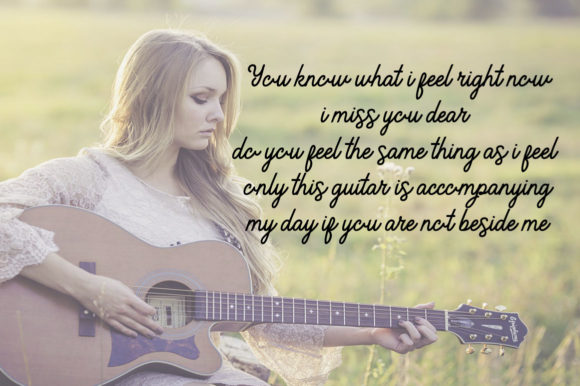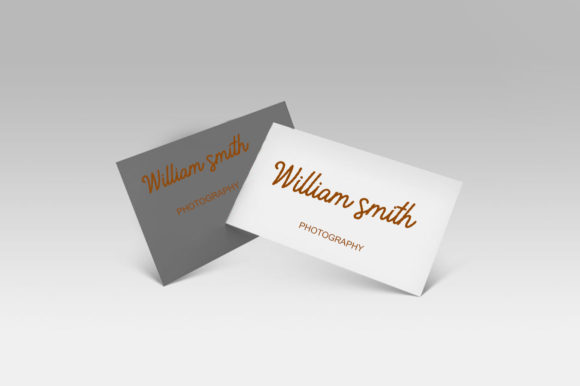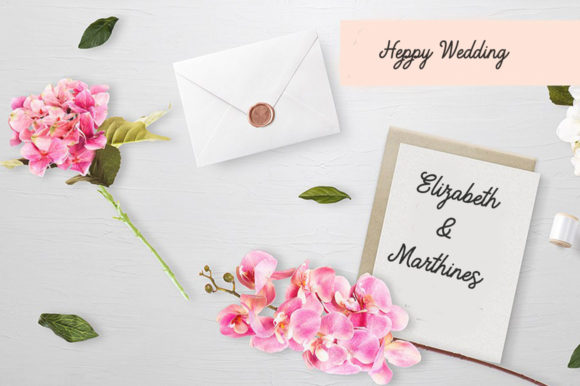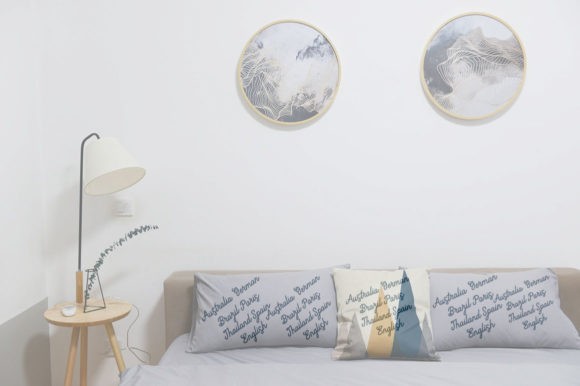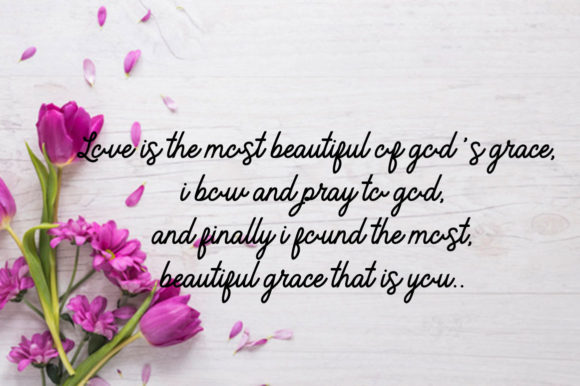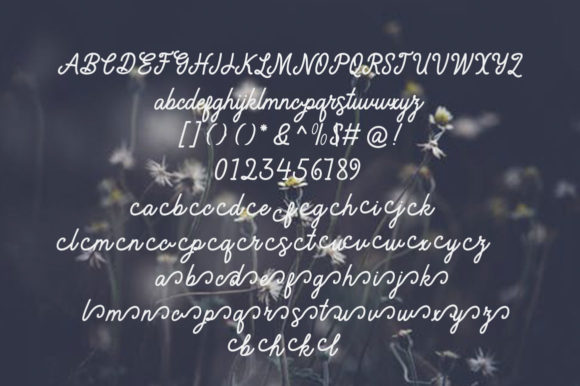
Delight Font
About Delight Font
Delight is a cute and romantic handwritten font with an adorable feel. It will turn any craft project into a stand out!